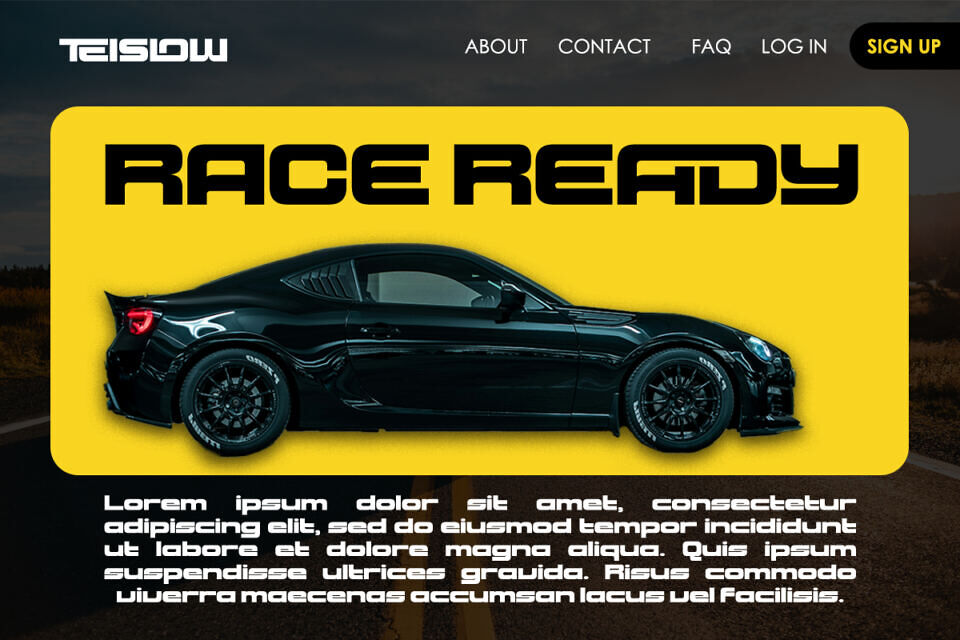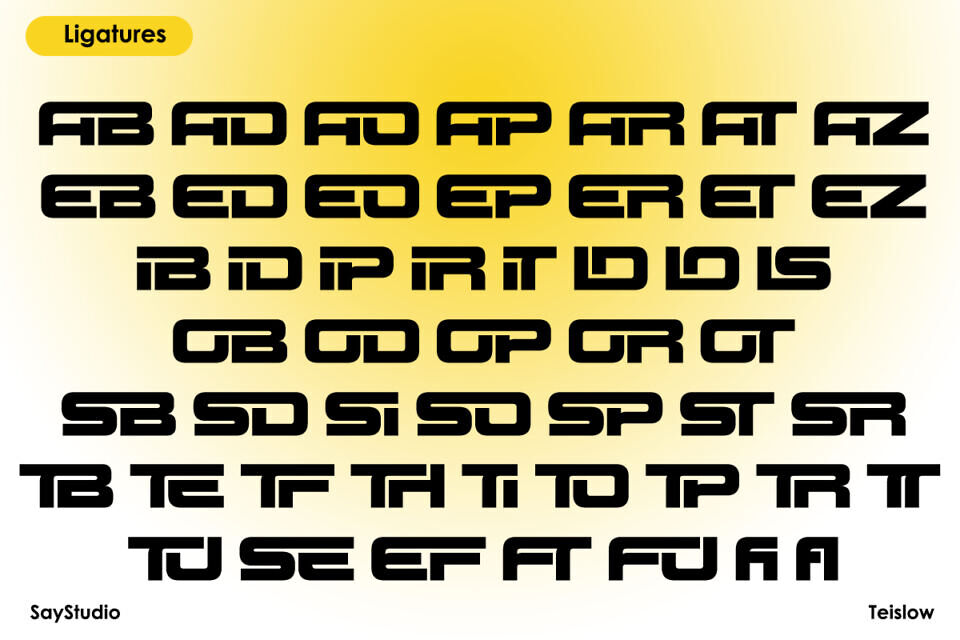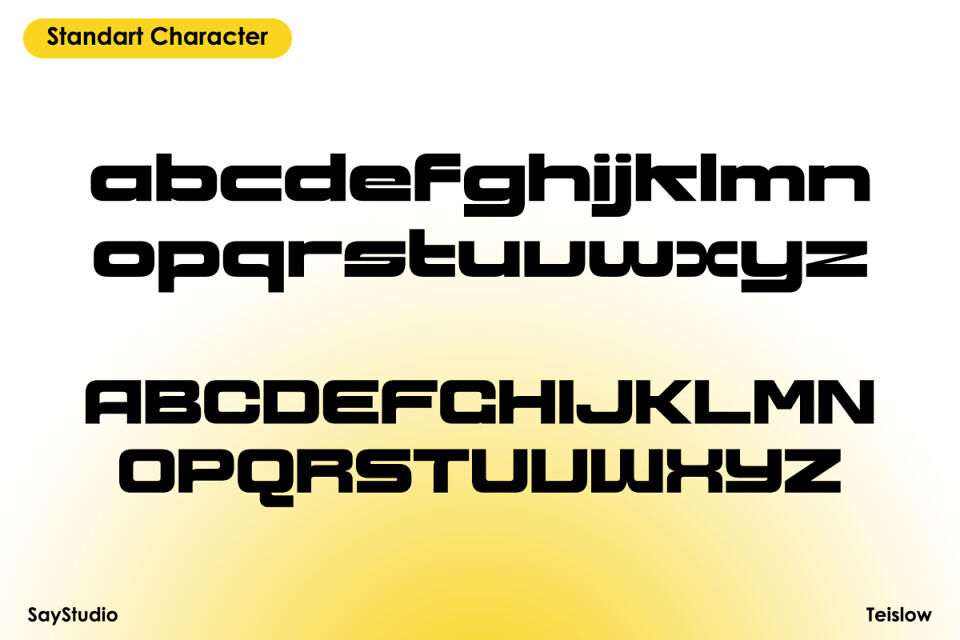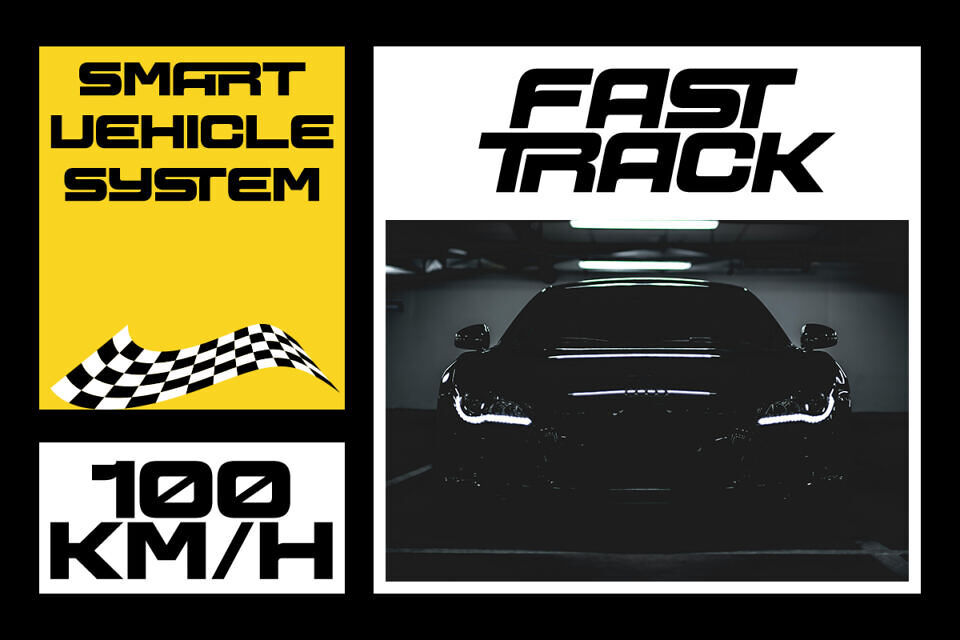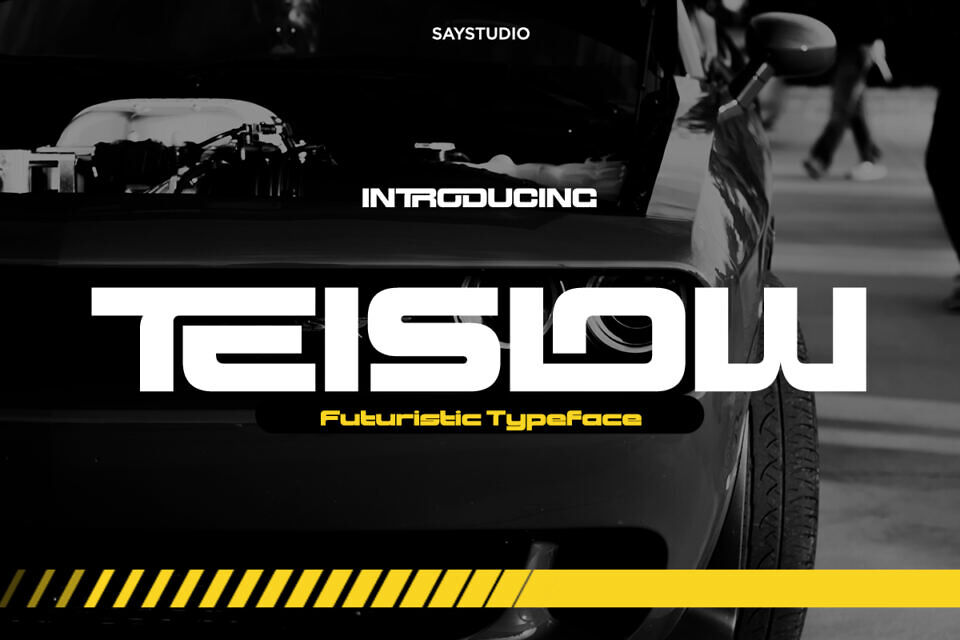
Teislow Font
Teislow is a futuristic display typeface built to express speed, power, and modern innovation. Inspired by automotive design, technology, and sci-fi aesthetics, Teislow features bold geometric forms with sharp edges that deliver a strong and confident visual impact.
Teislow is ideal for automotive branding, racing visuals, futuristic posters, technology products, gaming titles, and modern advertising. Whether used for logos, headlines, packaging, or promotional designs, this typeface delivers a powerful futuristic tone that commands attention.